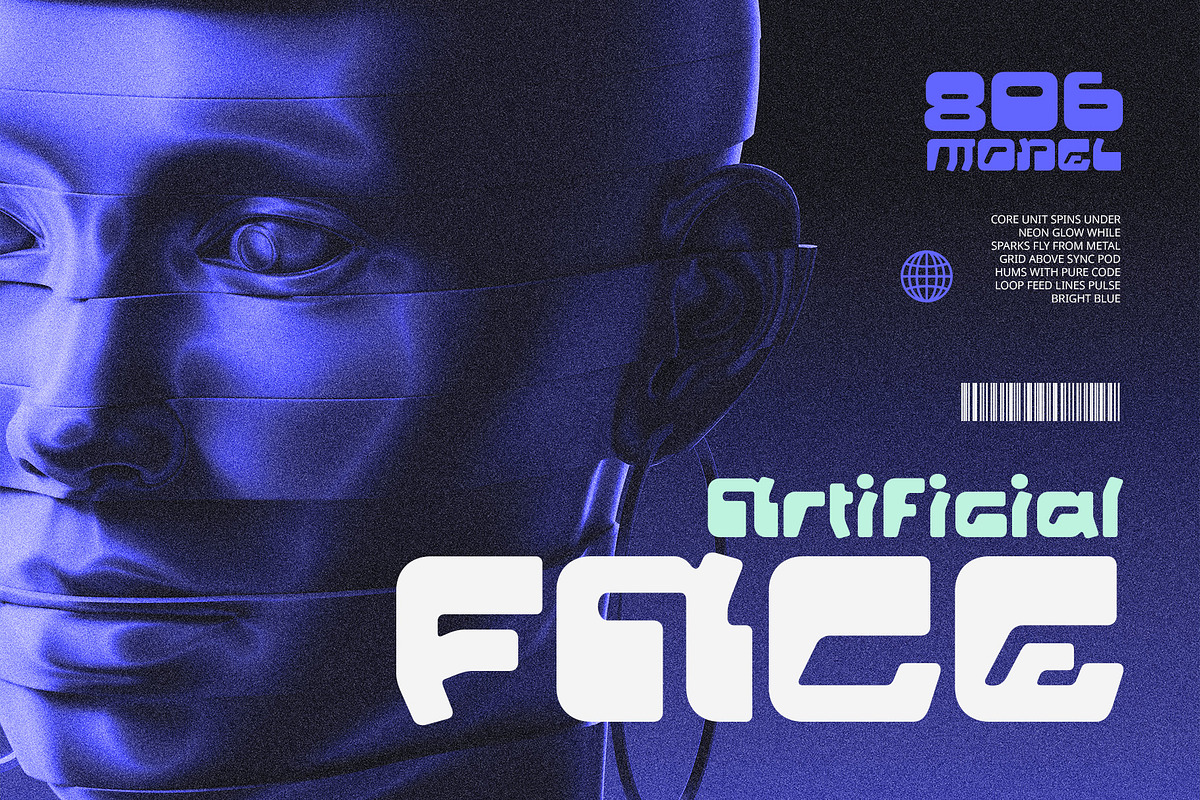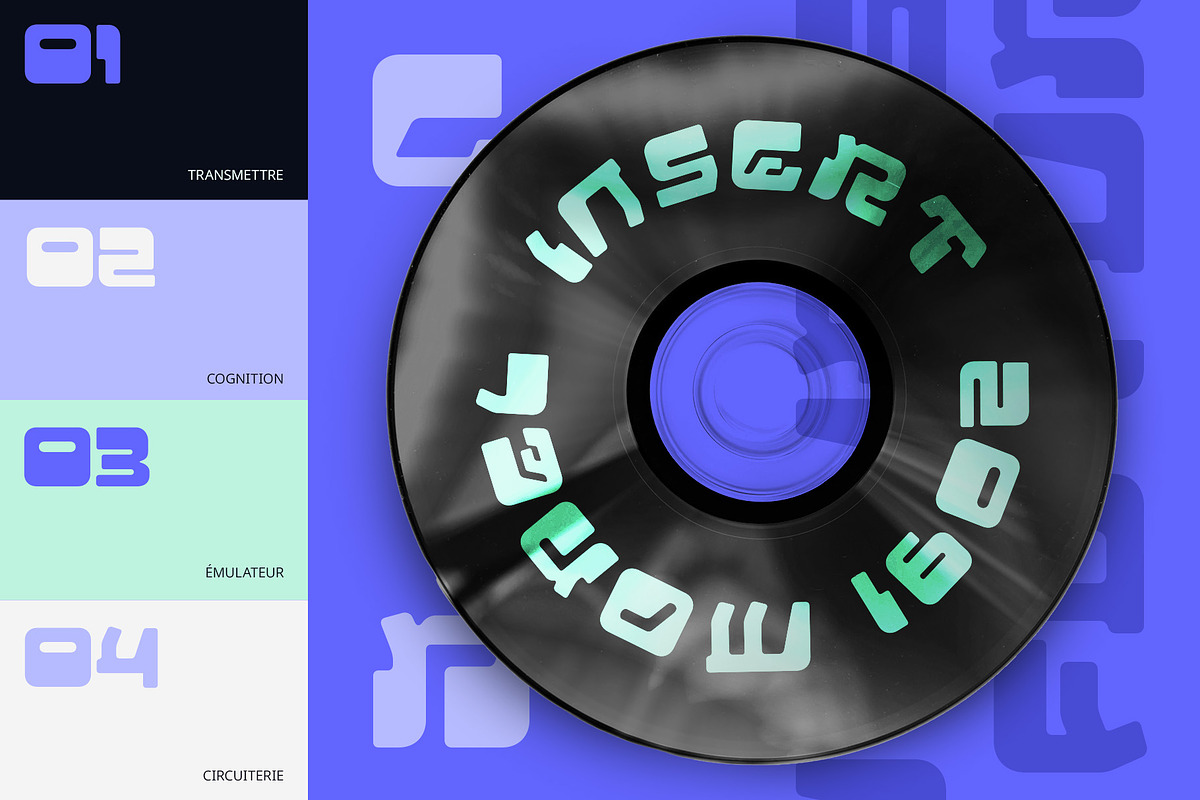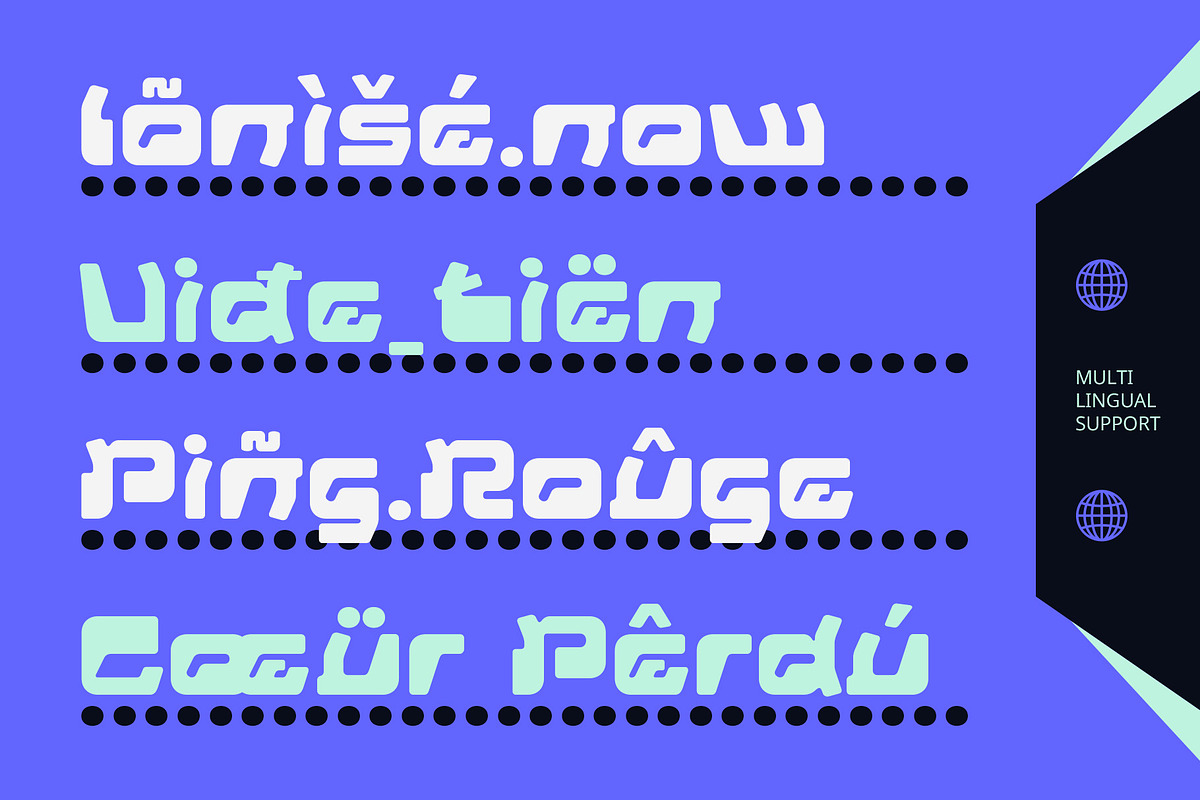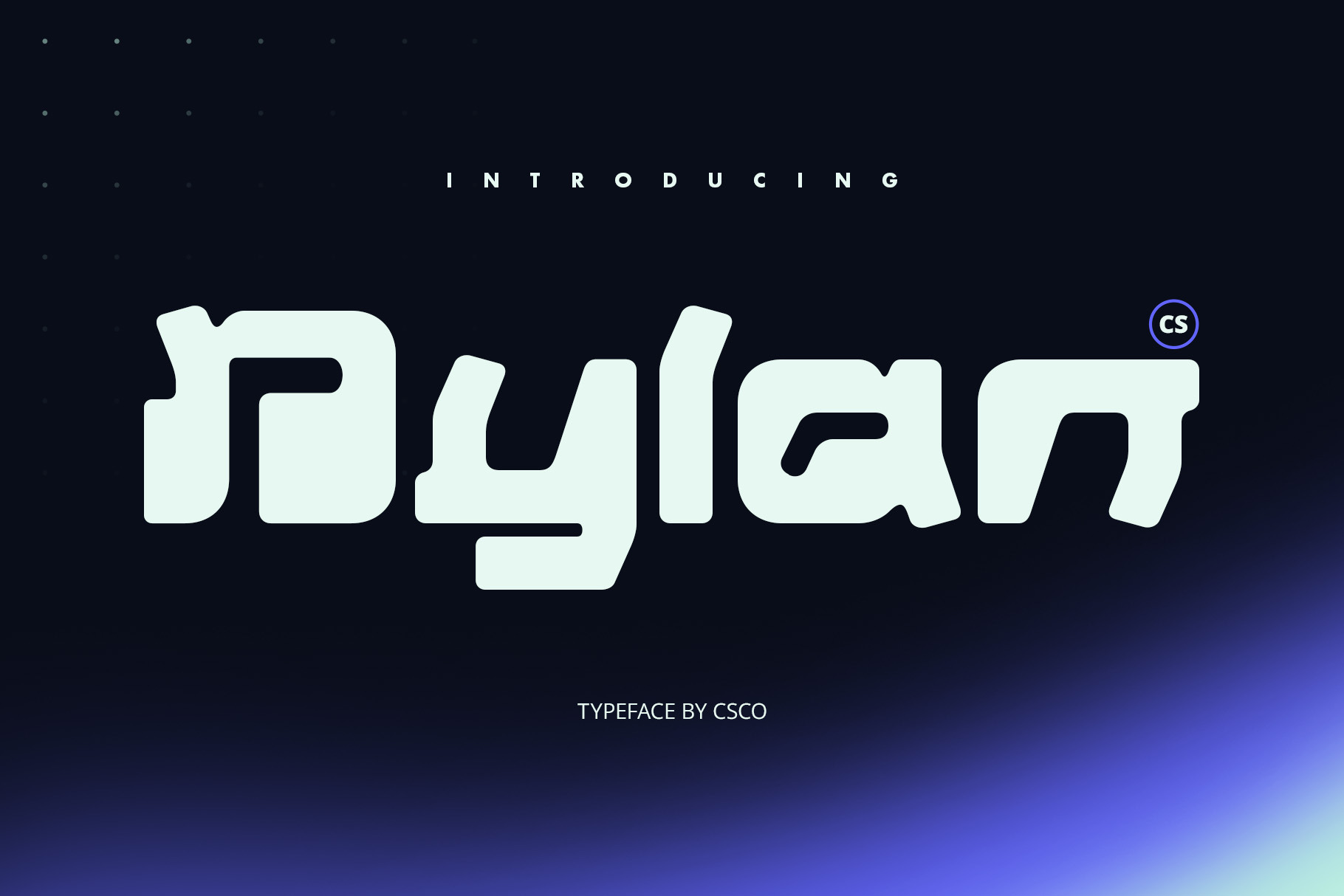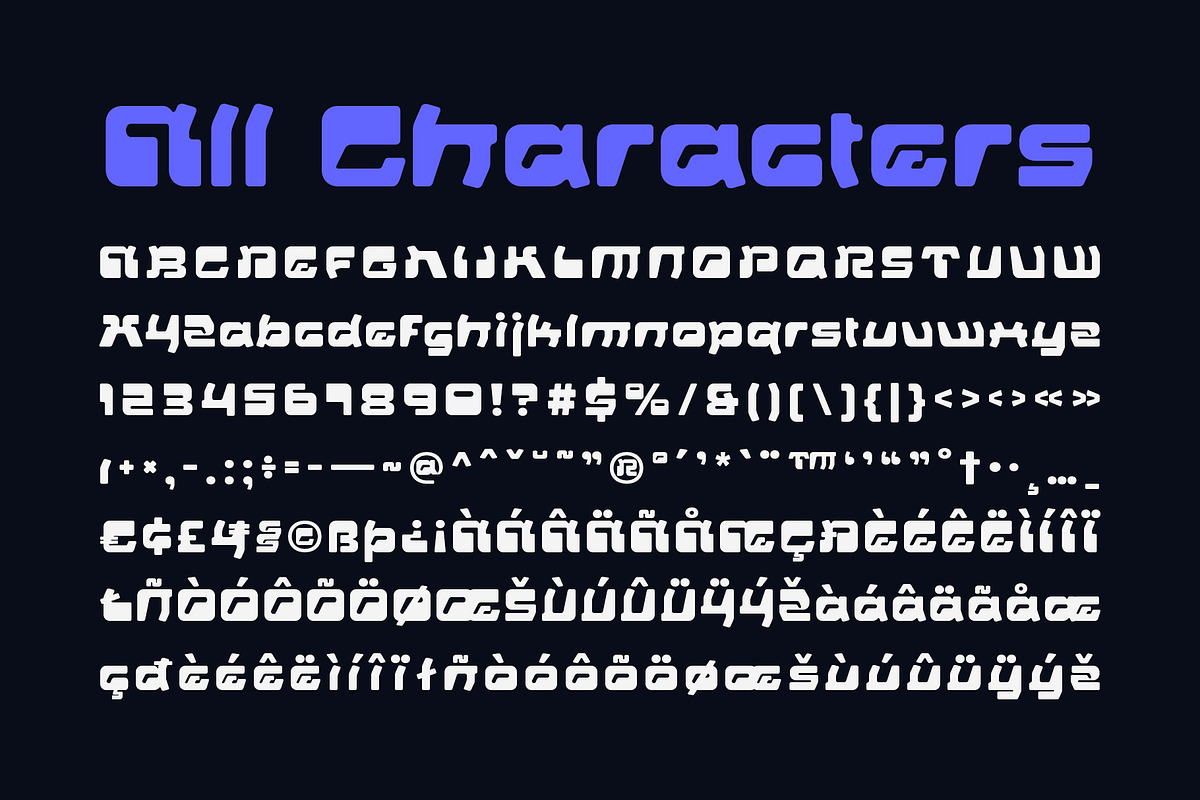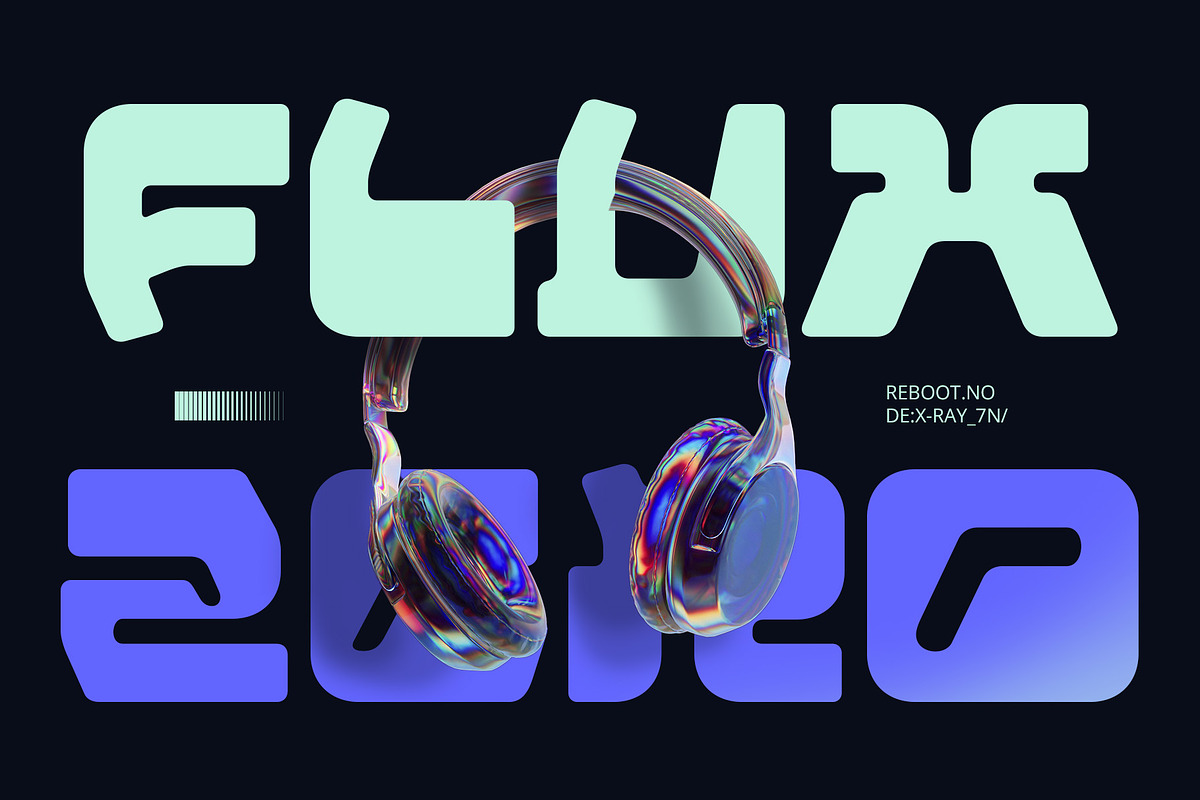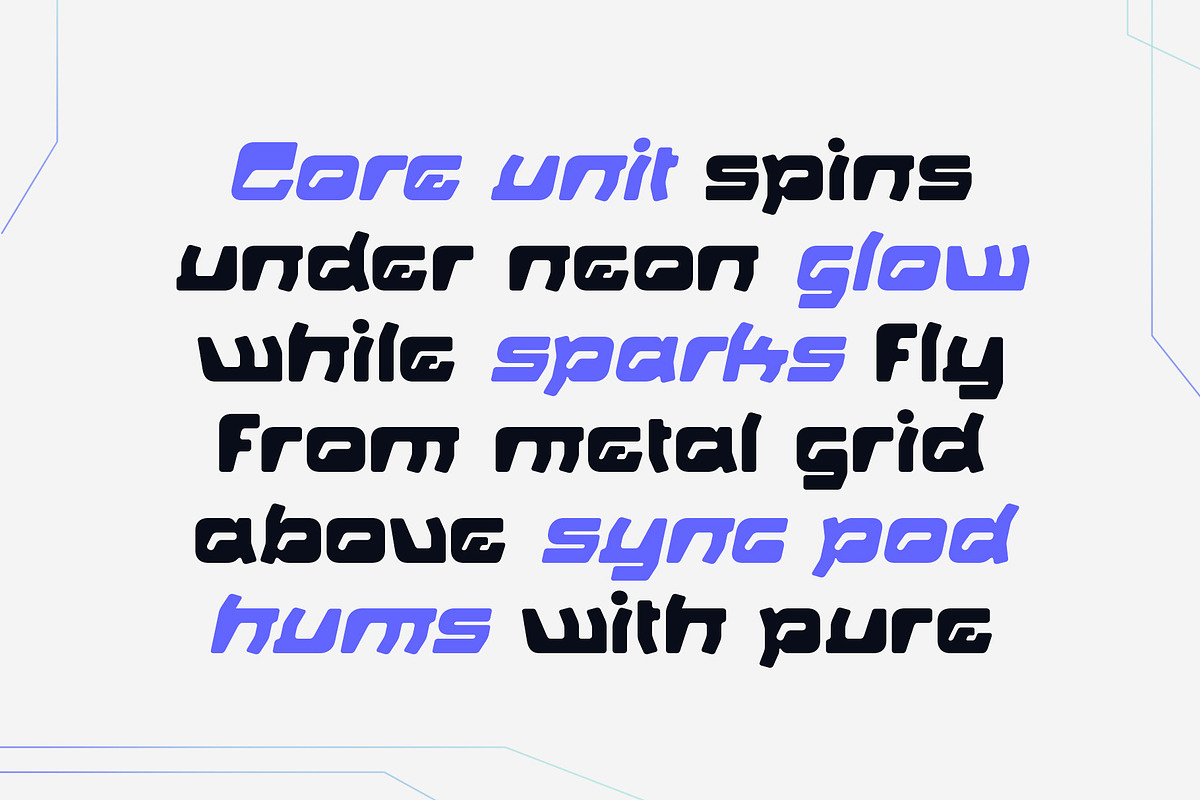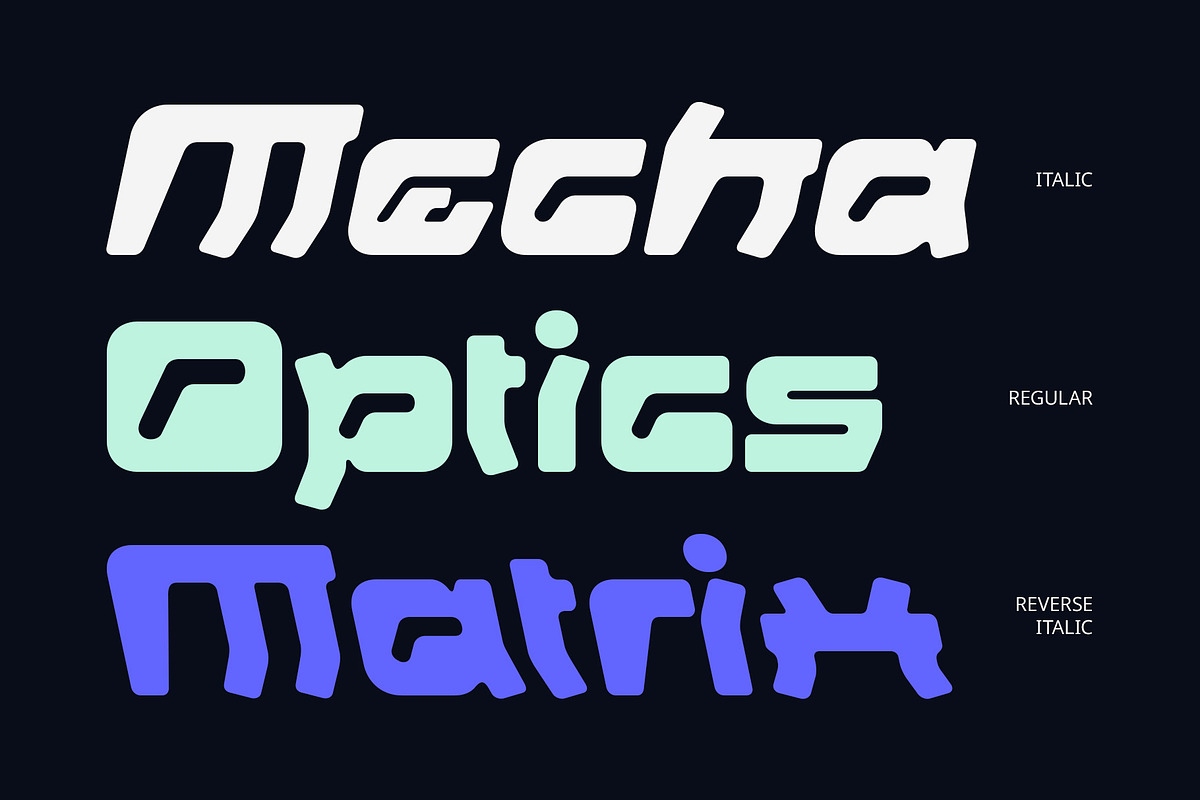
CS Dylan – Futuristic Font
CS Dylan – Visionary Futuristic Display Font
Cutting-Edge Typography for the Future-Forward Mind CS Dylan is a modern futuristic display font designed with a clean, bold, and high-tech aesthetic that embodies innovation and digital sophistication. With its geometric precision, sharp lines, and imaginative structure, this font channels the spirit of sci-fi worlds, advanced technologies, and digital evolution.
Sleek, Sharp, and Built for the Digital Age Each letterform in CS Dylan is constructed with distinctive angular features and minimal yet expressive shapes, often hinting at interfaces, circuits, and digital architecture. The font strikes a balance between simplicity and complexity—appearing clean at a glance, yet detailed upon closer inspection. This gives it a versatile futuristic vibe perfect for high-contrast visual storytelling.
Perfect for High-Tech, Gaming, and Sci-Fi Designs Whether you’re crafting a sci-fi movie poster, branding a technology startup, designing UI/UX interfaces, or building gaming visuals, CS Dylan offers the visionary impact your work demands. It delivers a contemporary, space-age impression that aligns well with industries pushing creative and technological boundaries.
Ideal for Designers Who Think Ahead CS Dylan speaks to the designers and brands that embrace the future. It’s ideal for those who want their visual identity to reflect innovation, forward-thinking, and digital edge. Use it to bring a futuristic atmosphere and commanding presence to any project, whether in print or screen media.
- CS Dylan Regular
- CS Dylan Italic
- CS Dylan Reverse Italic